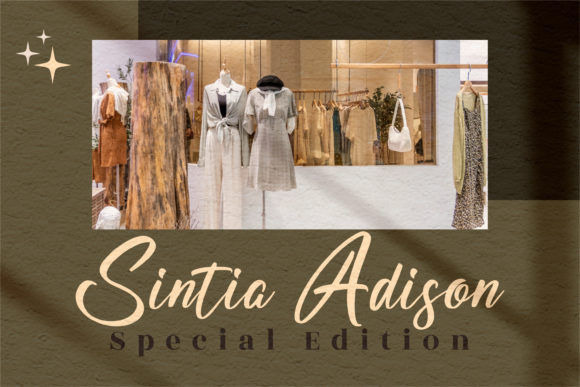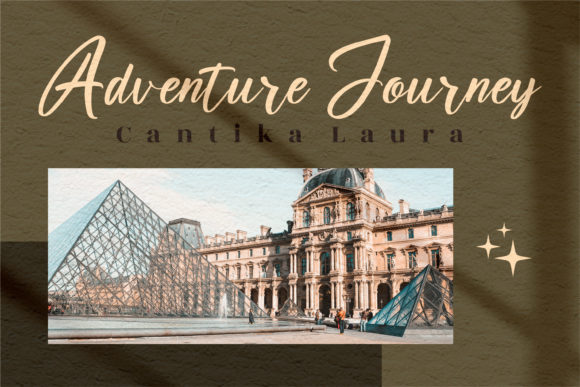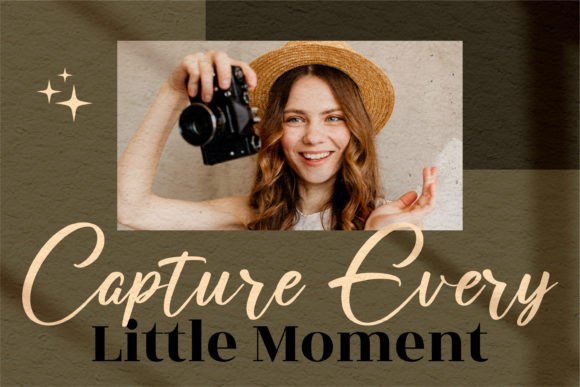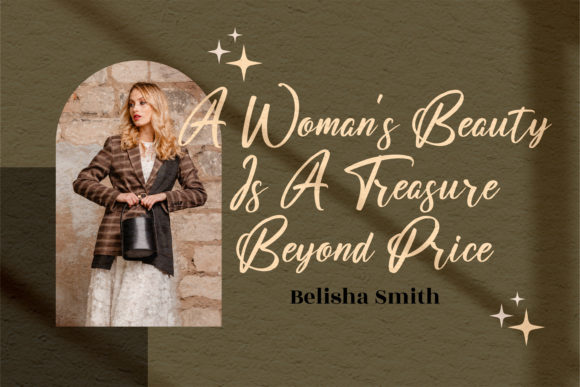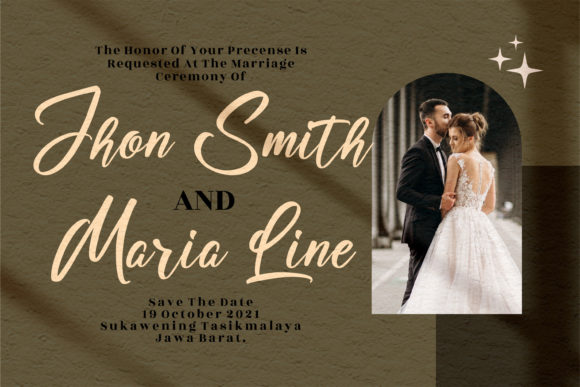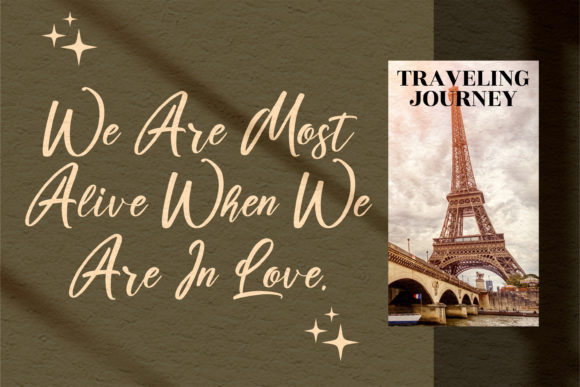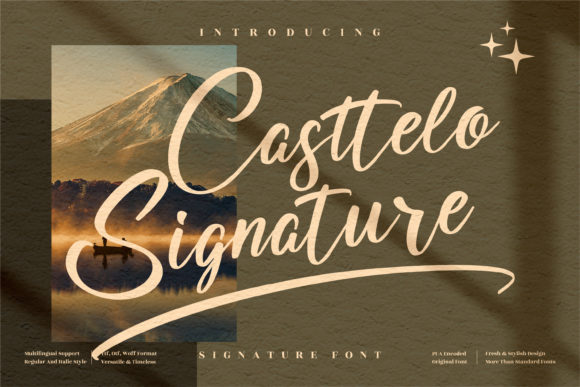
Introducing Casttelo Signature Font: Elevate Your Designs with Elegance and Flair
Are you a designer or crafter looking for the perfect font to add a touch of sophistication and elegance to your projects? Look no further than Casttelo Signature Font. This beautiful, handwritten font is designed to make your designs stand out, whether you’re working on wedding invitations, thank you cards, quotes, greeting cards, logos, business cards, or any other project that requires a personal and elegant touch.
The Beauty of Casttelo Signature Font
Casttelo Signature Font is a true masterpiece, boasting an incredibly elegant and flowing design that exudes refinement and poise. Its varying baseline, smooth lines, gorgeous glyphs, and stunning alternates come together to create a font that is both visually striking and endlessly versatile. Whether you’re aiming to create a romantic and whimsical feel or a more formal and sophisticated look, Casttelo Signature Font is the perfect choice.
One of the standout features of Casttelo Signature Font is its incredible flexibility. It’s suitable for a wide range of design projects, including:
- Wedding invitations: Add a touch of romance and elegance to your wedding stationery with Casttelo Signature Font.
- Thank you cards: Express your gratitude in style with this beautiful font.
- Quotes: Make your inspirational quotes stand out with Casttelo Signature Font’s gorgeous glyphs and smooth lines.
- Greeting cards: Create stunning greeting cards for any occasion, from birthdays to holidays.
- Logos: Add a personal touch to your brand’s logo with this elegant font.
- Business cards: Elevate your business cards with Casttelo Signature Font’s sophisticated design.
Key Features of Casttelo Signature Font
So what makes Casttelo Signature Font so special? Here are just a few of its key features:
- Varying baseline: Creates a natural, handwritten feel that’s perfect for designs that require a personal touch.
- Smooth lines: Add a touch of elegance and sophistication to your designs.
- Gorgeous glyphs: Make your designs stand out with Casttelo Signature Font’s beautiful glyphs.
- Stunning alternates: Add some extra flair to your designs with this font’s gorgeous alternate characters.
Why Choose Casttelo Signature Font?
With so many fonts to choose from, why should you choose Casttelo Signature Font for your next design project? Here are just a few reasons:
- Unique and elegant design: Casttelo Signature Font is truly one-of-a-kind, with a design that’s both elegant and eye-catching.
- Versatile: Suitable for a wide range of design projects, from wedding invitations to logos.
- High-quality: This font is designed to deliver high-quality results, with smooth lines and gorgeous glyphs.
In conclusion, Casttelo Signature Font is a truly exceptional font that’s perfect for designers and crafters looking to add a touch of elegance and sophistication to their projects. With its varying baseline, smooth lines, gorgeous glyphs, and stunning alternates, this font is sure to impress. Whether you’re working on wedding invitations, thank you cards, quotes, greeting cards, logos, business cards, or any other design project, Casttelo Signature Font is the perfect choice. So why wait? Download Casttelo Signature Font today and take your designs to the next level!